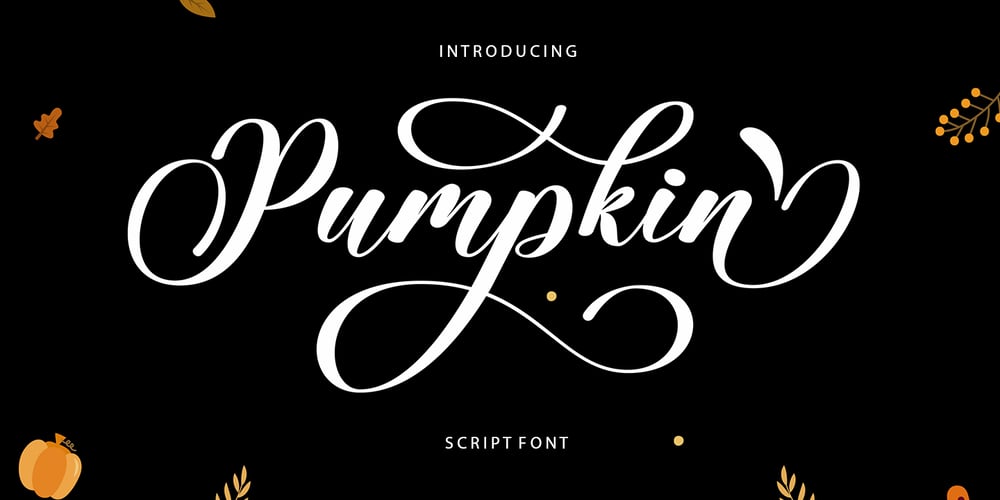
Pumpkin Script
Pumpkin Script font
Pumpkin Script Font Family was designed by Teuku Fahruddin and published by Typehill Studio. Pumpkin Script contains 1 styles and family package options. Pumpkin Script is a new modern script font with an irregular baseline. Trendy and feminine style. Pumpkin Script looks lovely on wedding invitations, thank you cards, quotes, greeting cards, logos, business cards and more. Perfect for using in ink or watercolour. Including initial and terminal letters, alternates and multiple language support.